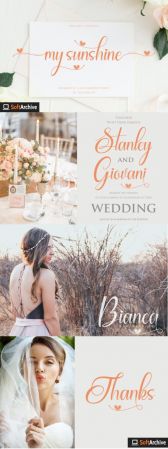
DesignOptimal - My Sunshine Font
My Sunshine feels equally charming and romantic. It looks stunning on wedding invitations, thank you cards, quotes, greeting cards, logos, business cards and every other design which needs a handwritten touch.
This font is PUA encoded which means you can access all of the glyphs and swashes with ease! It features a varying baseline, smooth lines, gorgeous glyphs and stunning alternates.